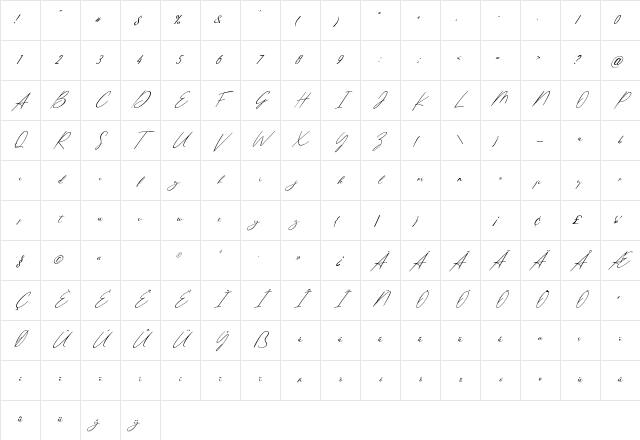
CatamountSignature Regular Free Font
CatamountSignature Regular
Design Context for CatamountSignature
CatamountSignature is a composed and adaptable typeface that performs quietly and consistently across a wide range of design contexts.